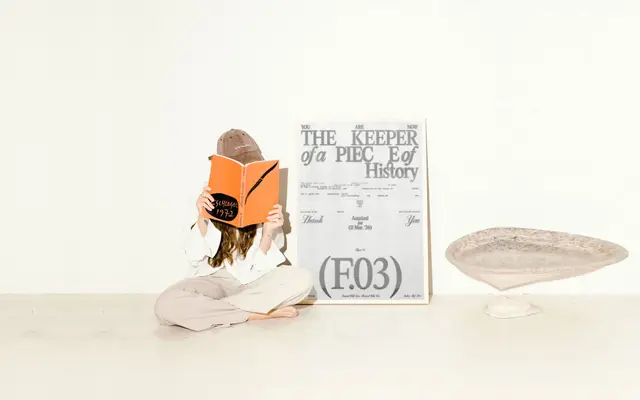
Playground
Pangram Foundry · Francesca Bolognini, Mat Desjardins · 2024
A contemporary copperplate script by Francesca Bolognini and Mat Desjardins, mixing pointed-nib calligraphic tradition with geometric letter construction across five weights.
Rooted in the pointed-nib copperplate tradition, Playground introduces unexpected tensions through exaggerated stroke contrast, square forms alongside flourishing curves, and acute cuts paired with round shoulders. The font is semi-connected by default, with full cursive connection available via contextual alternates, and two sets of capitals covering both italic and swash variations. Five weights span Thin to Medium, with lighter cuts suited to display sizes and heavier cuts holding up at smaller settings.
A contemporary semi-connected script rooted in classical copperplate calligraphic tradition, drawn with pointed-nib rhythms and precise geometric construction. Pangram categorise it under Display, Expressive, Humanist, Italics and Serif.